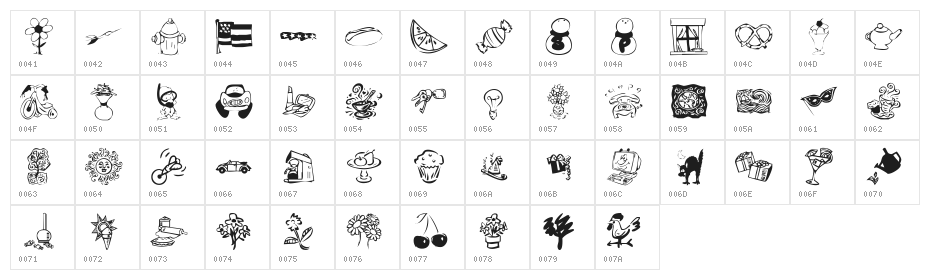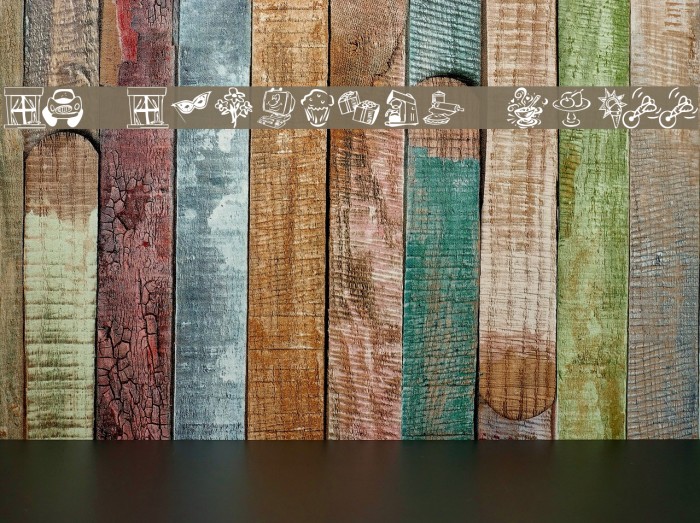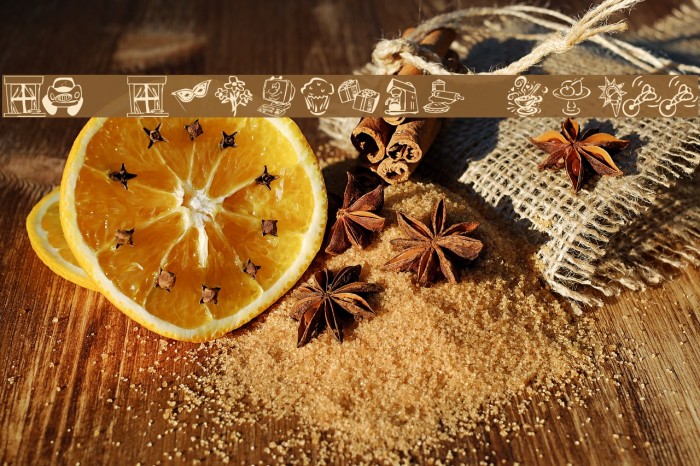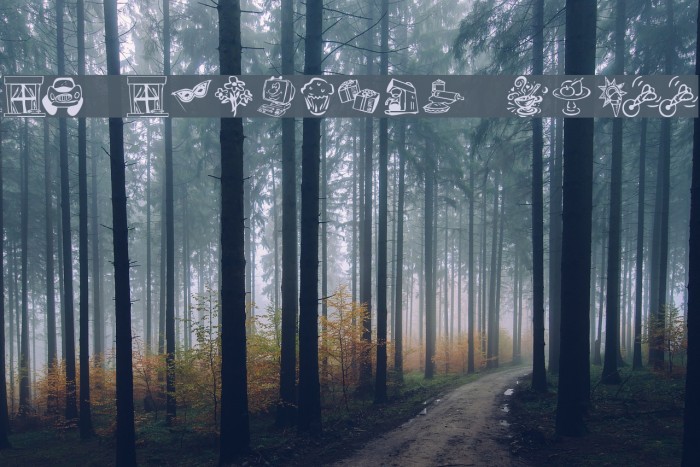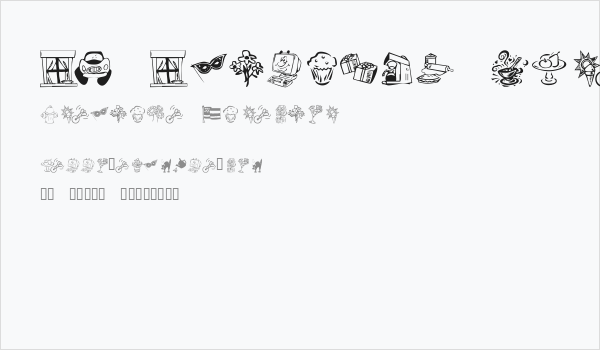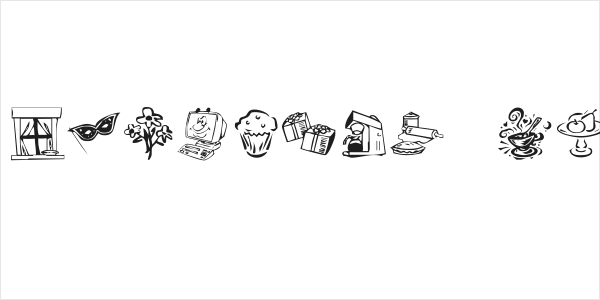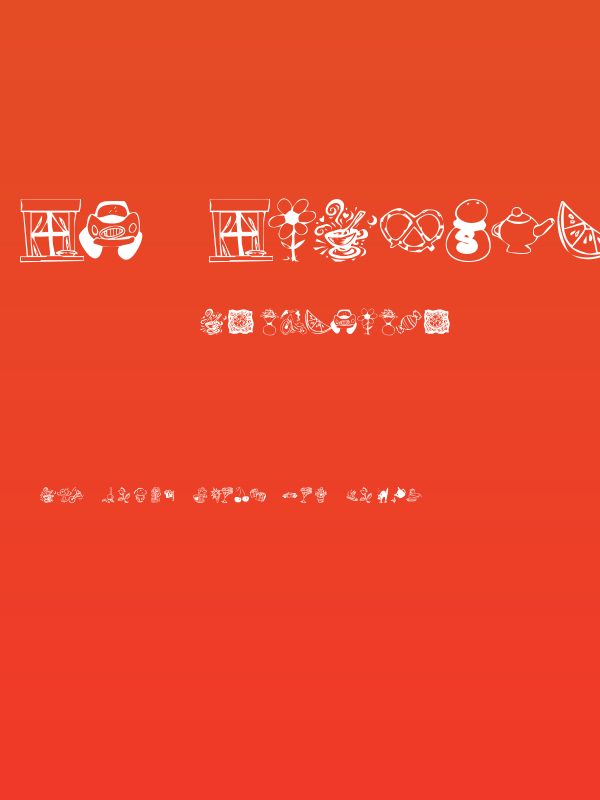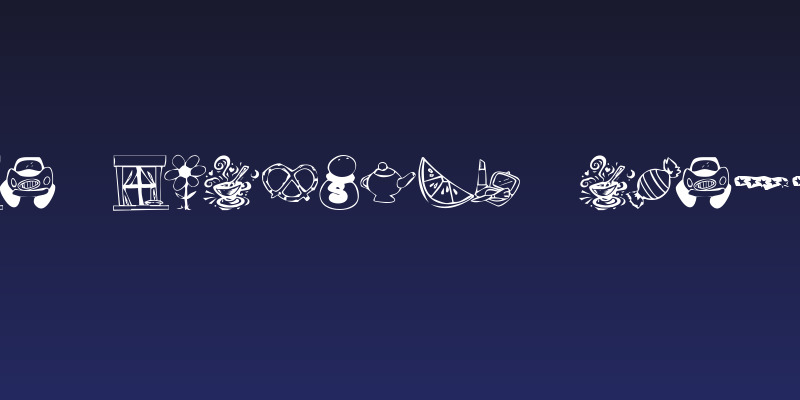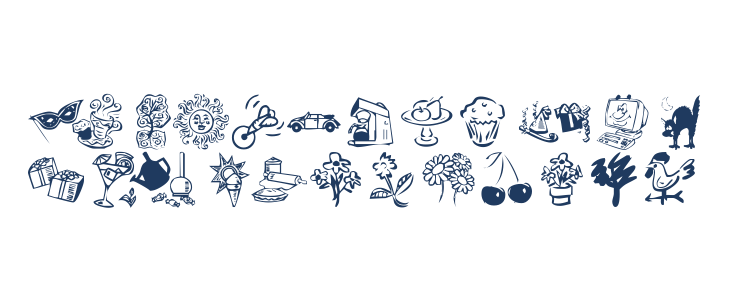
KR Katlings Three Font
This is a decorative and playful collection of pictorial symbols rather than a traditional font. Each character is represented by a unique illustration, ranging from everyday objects like flowers, flags, and food items to whimsical depictions of animals and abstract designs. The style is eclectic and varied, with a hand-drawn, cartoonish quality that adds a sense of fun and creativity. The illustrations are detailed and expressive, making them suitable for projects that require a touch of humor and visual interest.
| Use Case | Logos, Illustrations, Decorative elements |
| Proposed Projects | Ideal for children's books, playful invitations, greeting cards, or any project that benefits from a whimsical and illustrative touch. |